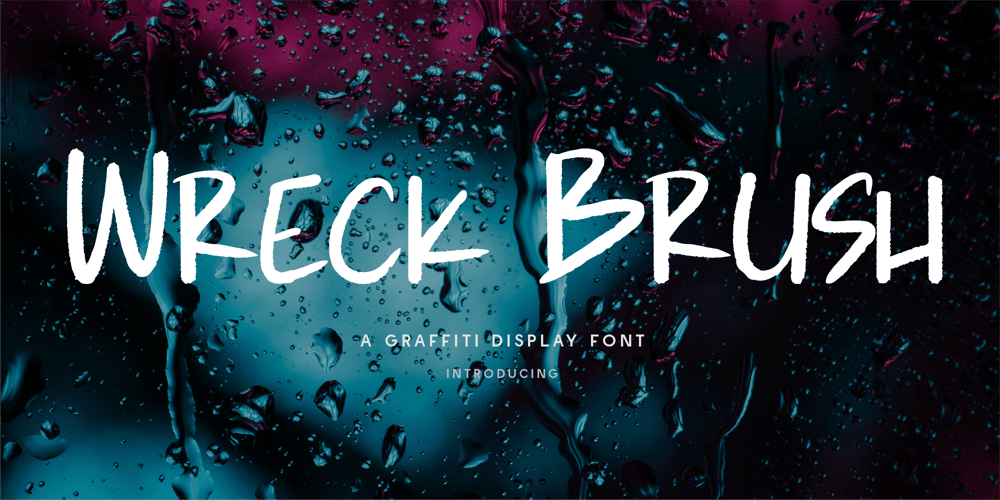
CF Wreck Brush Font Family was designed by Gilang Mei Nugraha, Frederik Aristaputra and published by Creatifont Studio. CF Wreck Brush contains 2 styles and family package options. Wreck Brush β A Bold & Edgy Graffiti Display FontBreak the rules and make a statement with Wreck Brush, a graffiti-inspired display font that captures the raw energy of street art. With its bold brush strokes, rough textures, and dynamic flow, this typeface is perfect for designs that demand impact, attitude, and urban edge.Whether you’re designing streetwear branding, music album covers, bold advertising, posters, or social media graphics, Wreck Brush delivers an unmistakable hand-painted, rebellious look. Itβs the perfect blend of chaotic energy and artistic expression, designed for those who dare to be different.Why Choose Wreck Brush?π¨ Authentic Graffiti Style: Handcrafted brush strokes with an urban, street-art vibe.π₯ Bold & Unapologetic: A font that commands attention with its raw energy.π Versatile & Expressive: Perfect for branding, posters, merchandise, and edgy designs.π Multilingual Support: Includes numbers, symbols, and extensive language compatibility.Let Wreck Brush add a dose of gritty attitude to your projects. Download now and make your mark with urban creativity and street-inspired boldness! π¨π₯A SUMMARY OF WHAT’S INCLUDED:- Standard Character A-Z, a-z, 0-9, Punctuation & symbols- Regular and Italic- Works on PC & Mac- Simple installation- Accessible in Adobe Creative Suite (Ai, Ps, Id, etc.) even work on Microsoft Word.- PUA Encoded Characters β Fully accessible without additional design software.πIf you come across any issues or notice anything we might have overlooked while using this product, please feel free to reach out to us. We greatly value your feedback as it helps us enhance and refine our products. Thank you!